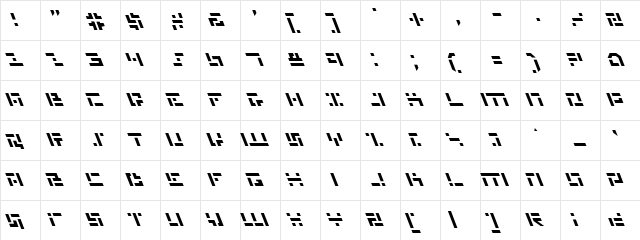
Missile Man Leftalic Leftalic
Design Context for Missile Man Leftalic Typeface
Missile Man Leftalic is a composed and adaptable typeface that performs quietly and consistently across a wide range of design contexts. Its italic angle brings a sense of urgency and motion to the letterforms.
Pro Tip: Use Missile Man Leftalic for emphasis, pull quotes, and subheadings where its slanted energy can add rhythm to the layout.